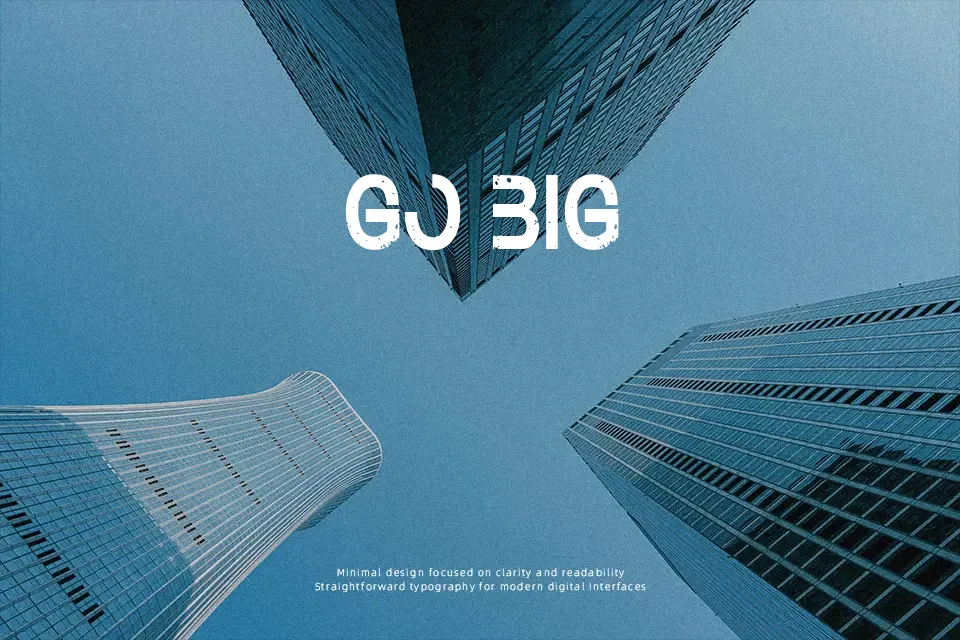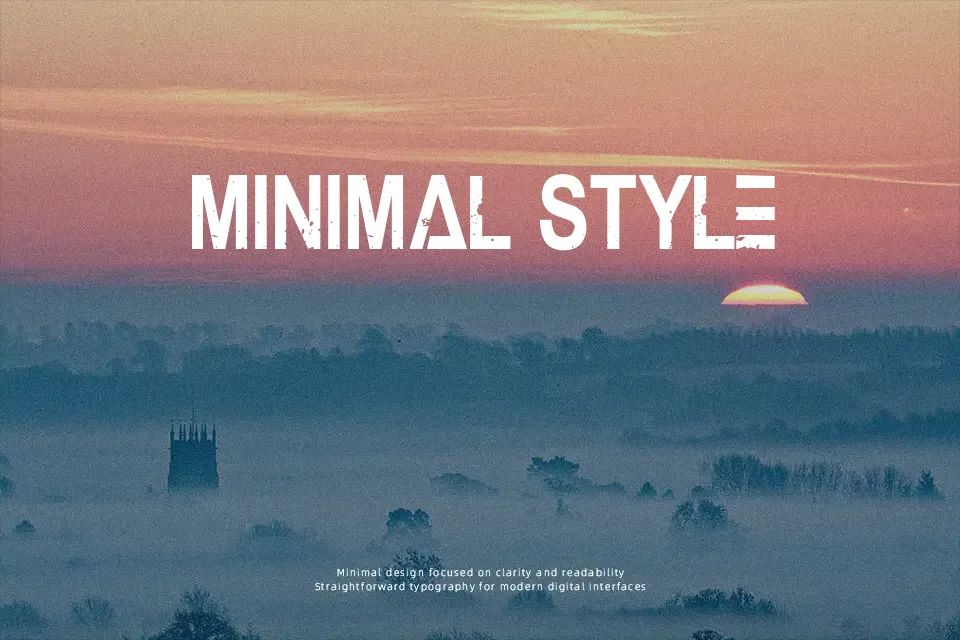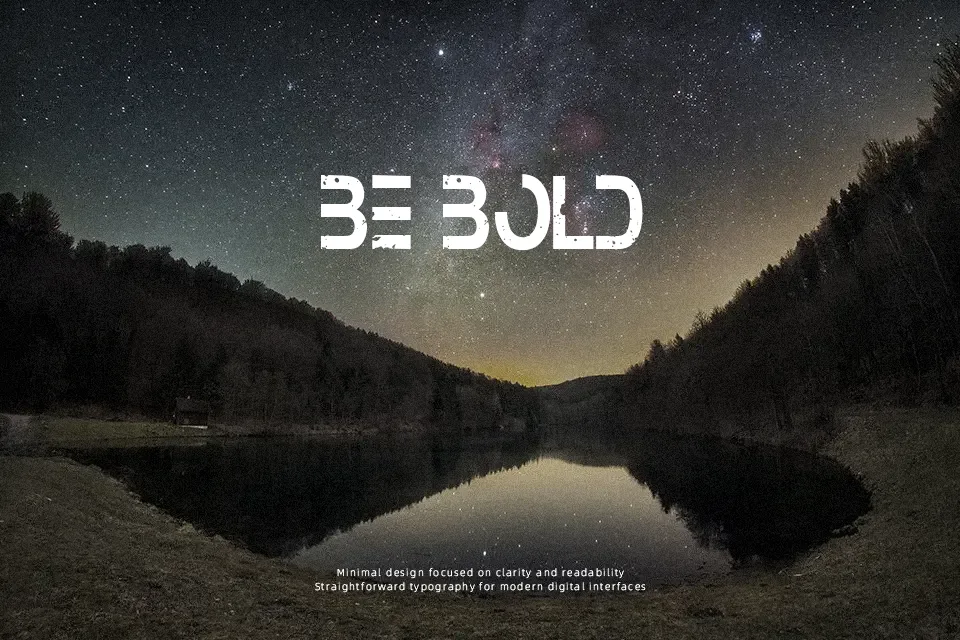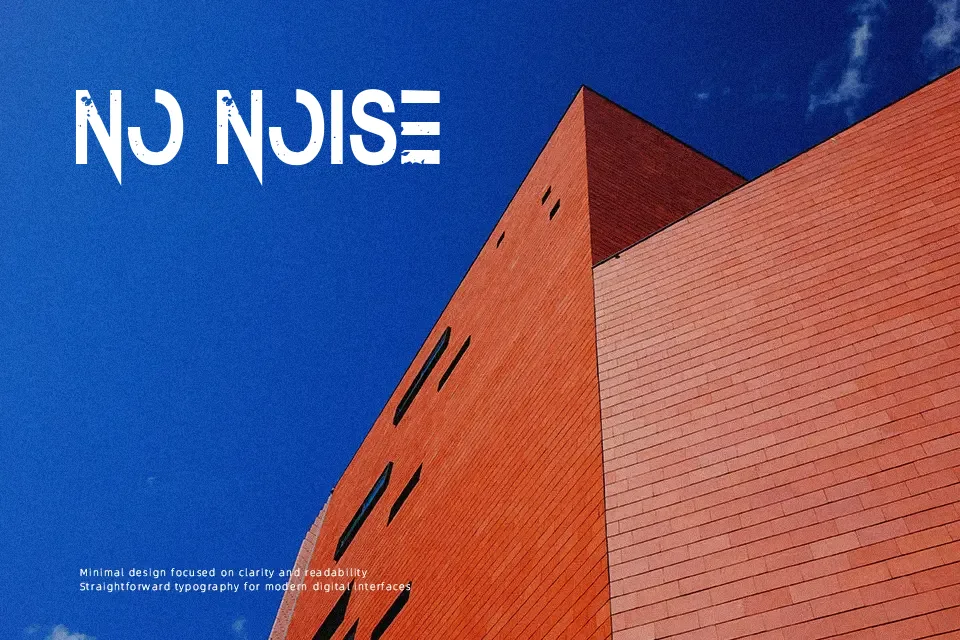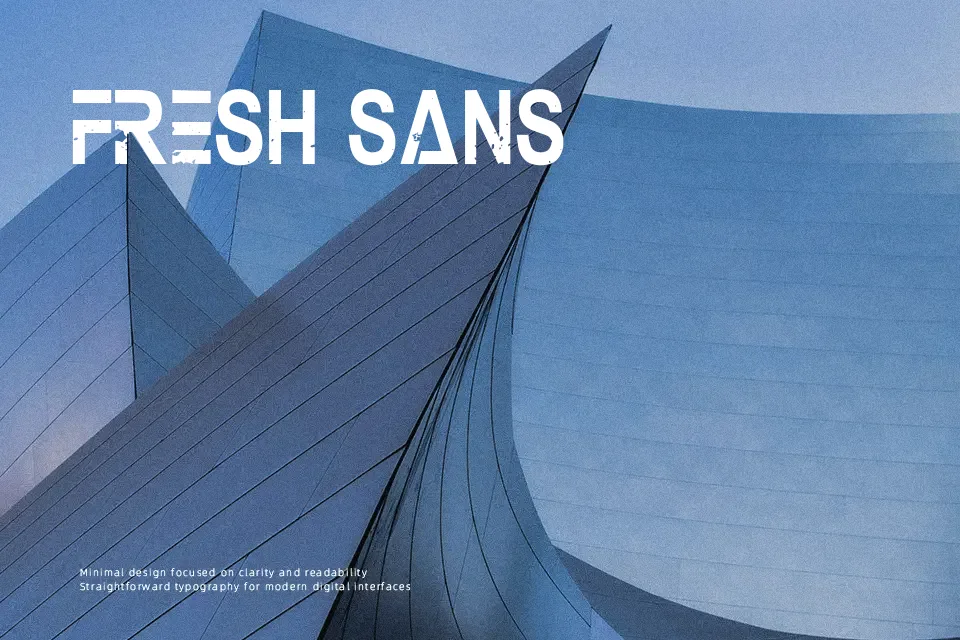
Under Authority Font
Under Authority Font features bold, blocky letterforms with eroded horizontal slices and strong rectangular geometry. Solid structural strokes, uniform stroke weight, and balanced tracking provide consistent rhythm across uppercase characters. The distressed cutout texture preserves character silhouettes effectively in large headlines and dramatic title treatments, though the heavy density and fragmented details become less legible in running body copy. While ideally suited for cinematic posters, aggressive sports branding, and video game logos, the typeface is less practical for continuous reading environments.
Best For: esports team logos,sci-fi movie posters,athletic apparel graphics,video game packaging
Not Ideal For: long paragraph text,mobile app interface labels,corporate legal documents,dense editorial layouts
Perfect for branding, gaming, and headline, with a bold and decorative style.